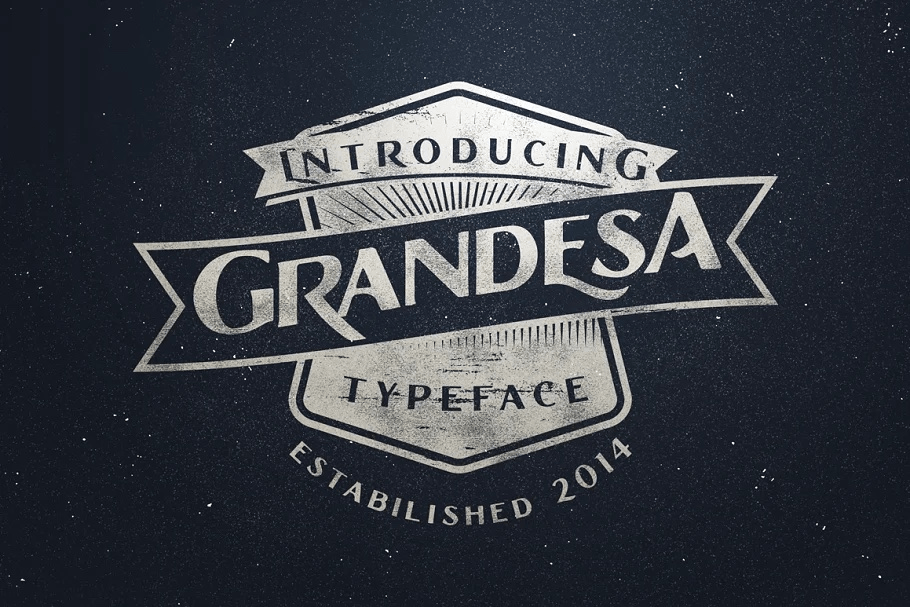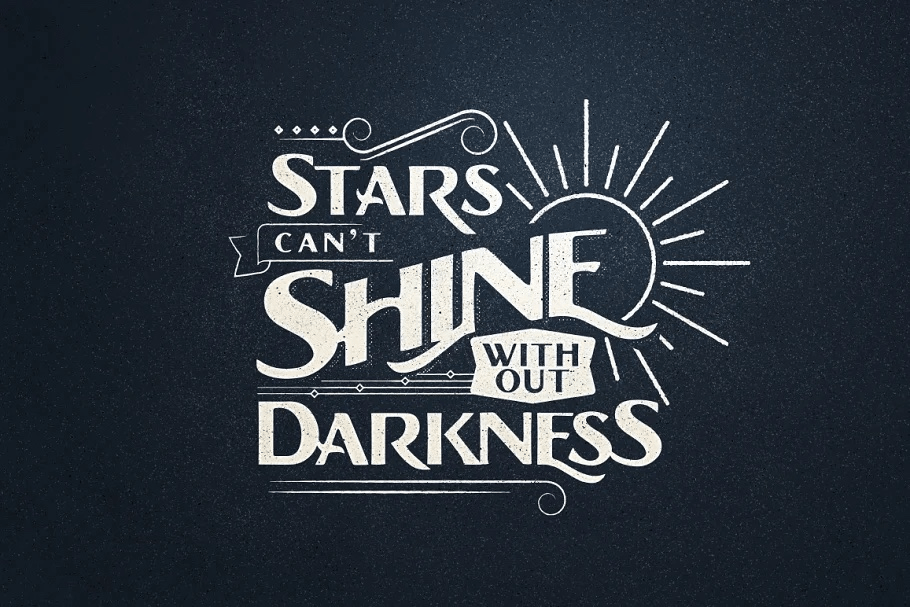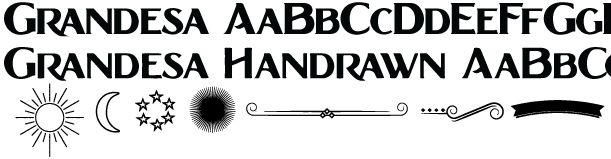
Grandesa
About Grandesa
Grandesa is a handmade family with two typefaces (Refined and Handrawn) and a set of ornaments. In OpenType capable apps, turning on Stylistic Alternates and Contextual Alternates allows you to mix and match pairs of letters to fit your design. Grandesa…